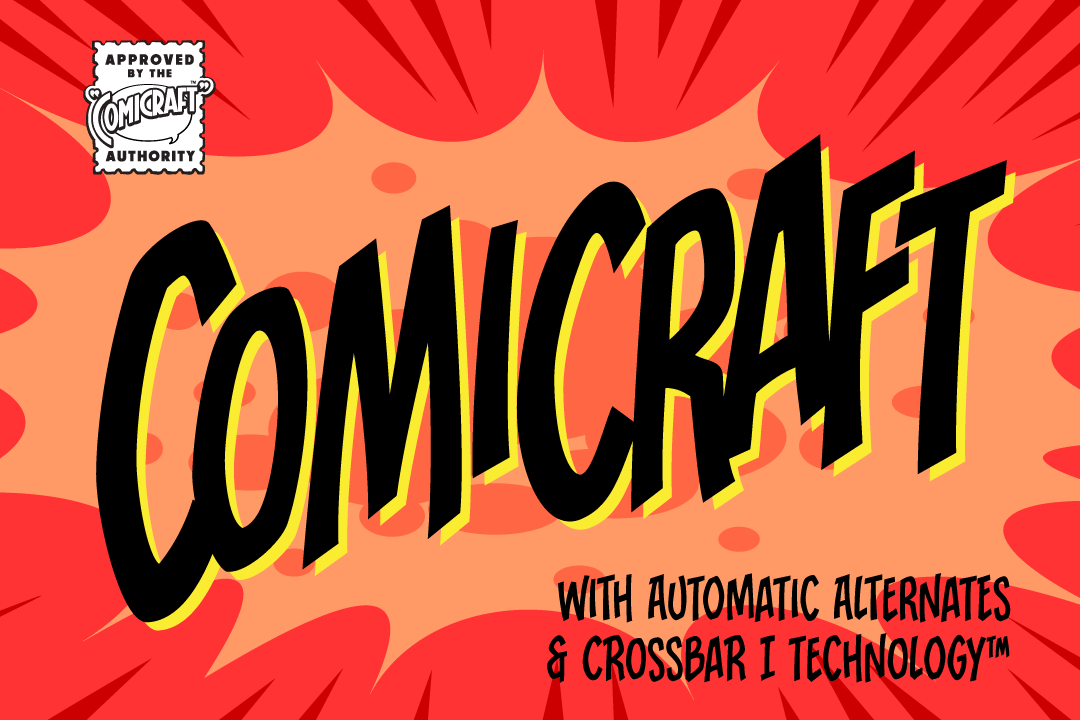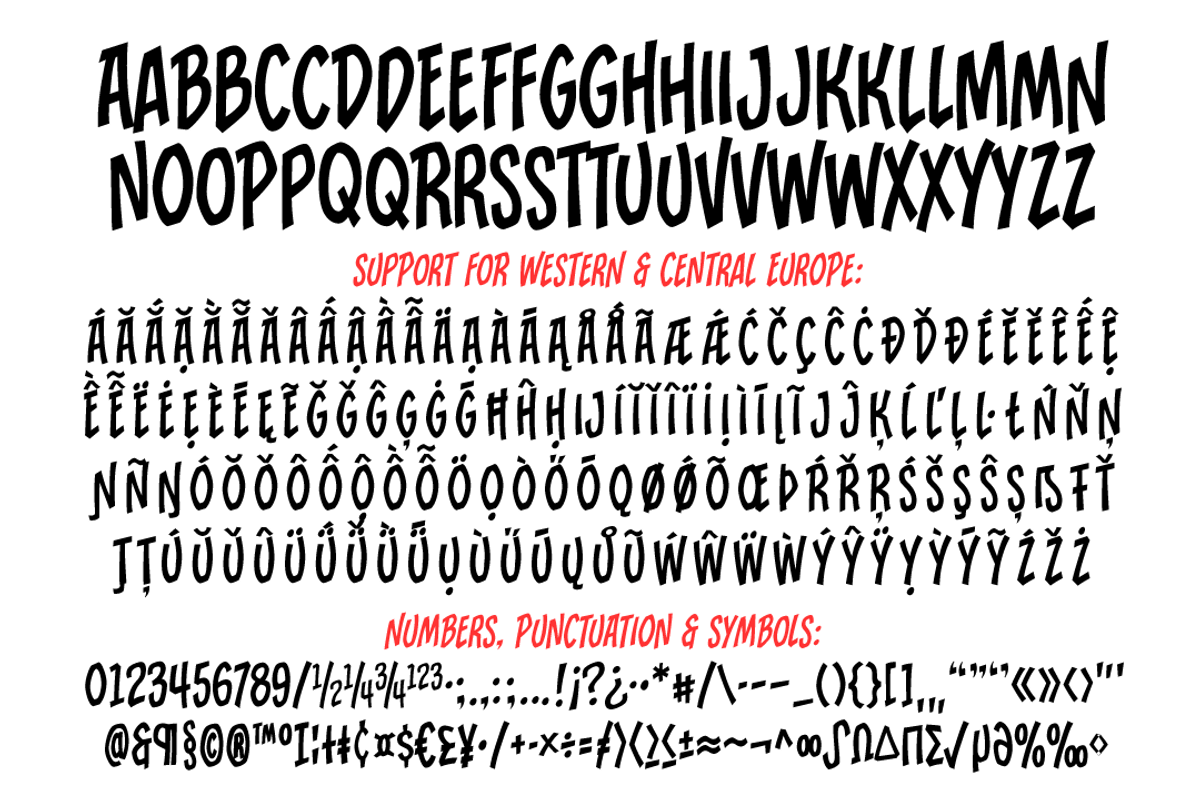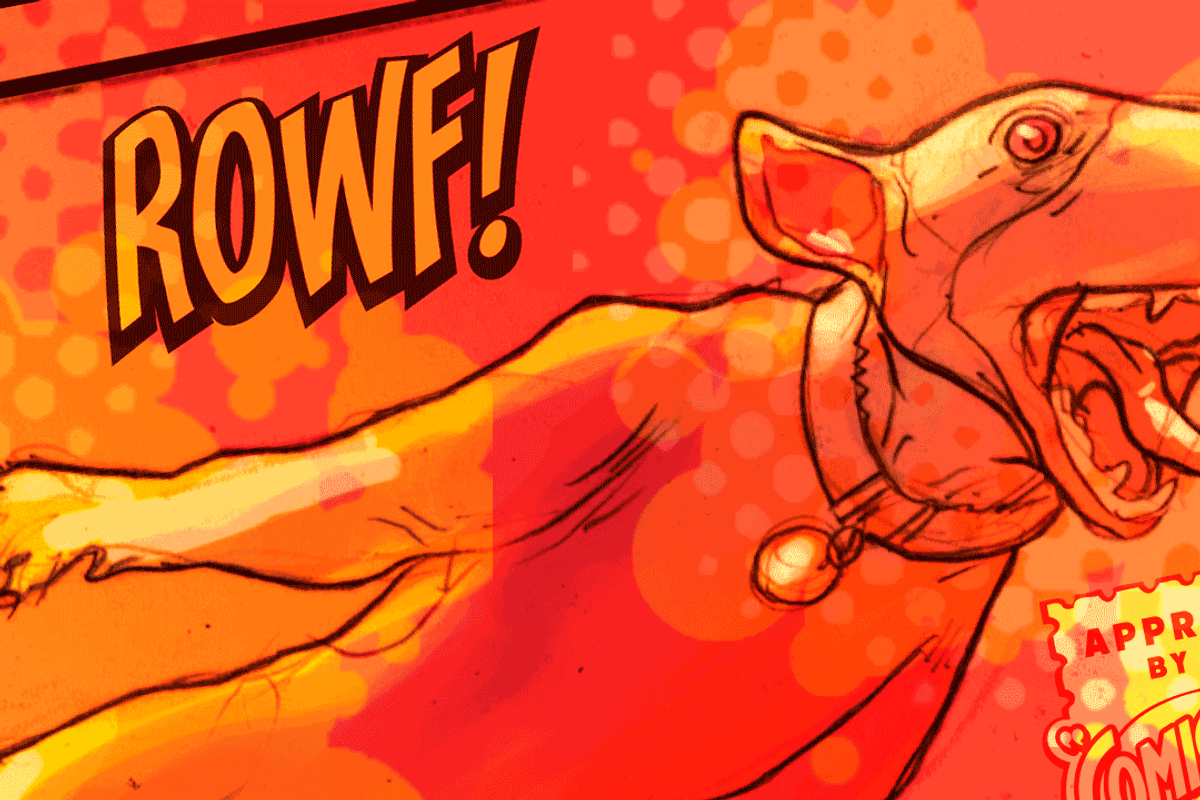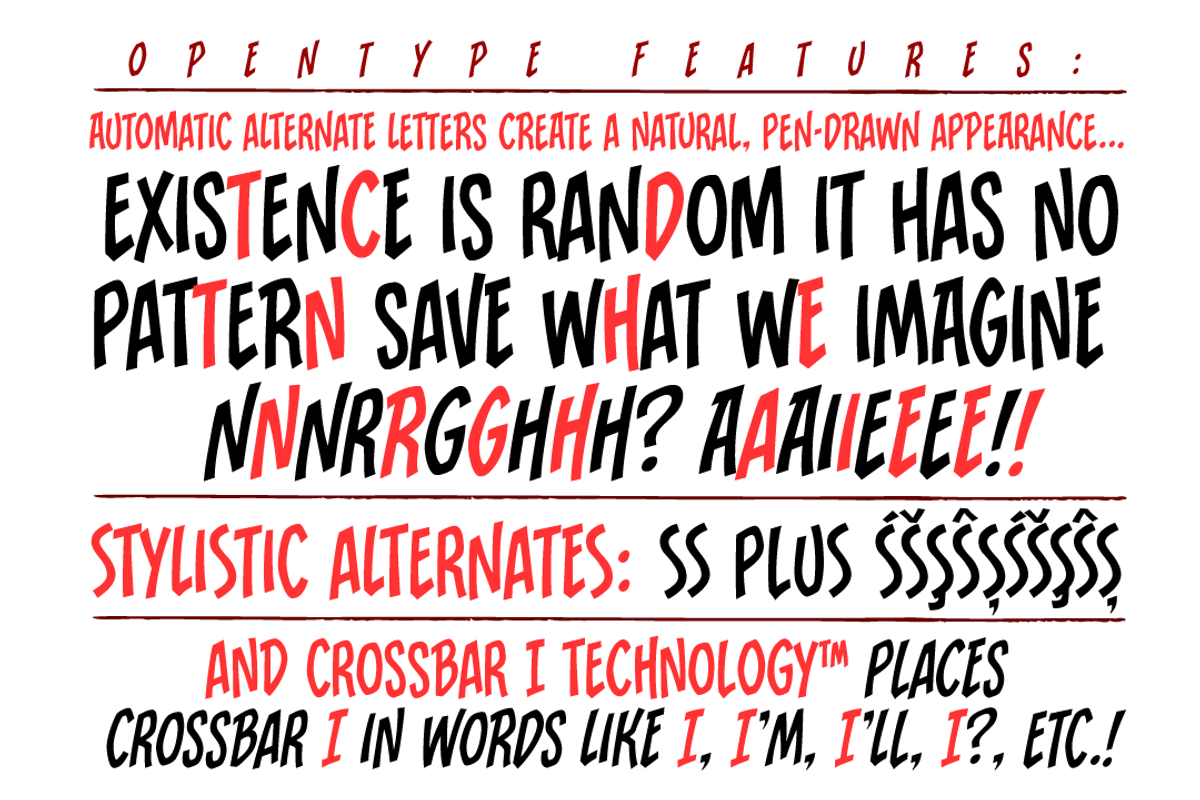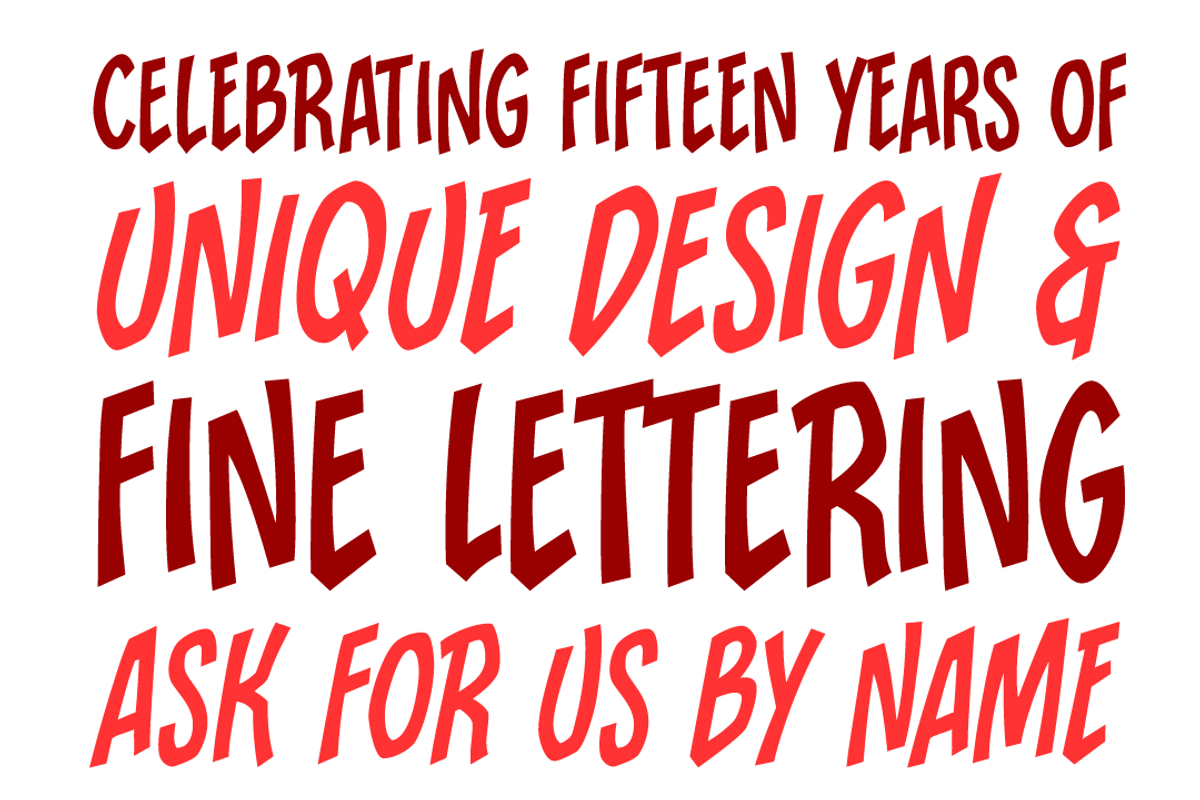
Comicraft - lively sound effect font
FIFTEEN YEARS! Hundreds of fonts of Unique Design, Thousands of pages of Fine Lettering, Millions of satisfied customers and Elephantmen served! Yes, 2007 is Comicraft’s fifteenth anniversary and we celebrataed with the relaunch of the COMICRAFT website and the launch of a brand new font... a font that’s not just a bunch of letters arranged in alphabetical order. This one’s Carefree, Original, Mirthful and Interesting, it’s Clever, it’s a little bit Raunchy, a little bit Adventurous, Friendly and Tenacious all at the same time -- and if that doesn’t spell COMICRAFT, then we just didn’t eat enough chocolate today.